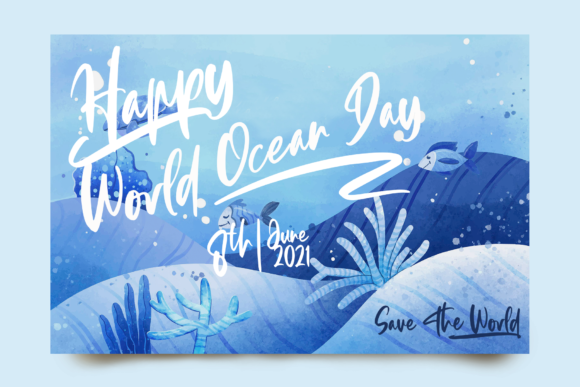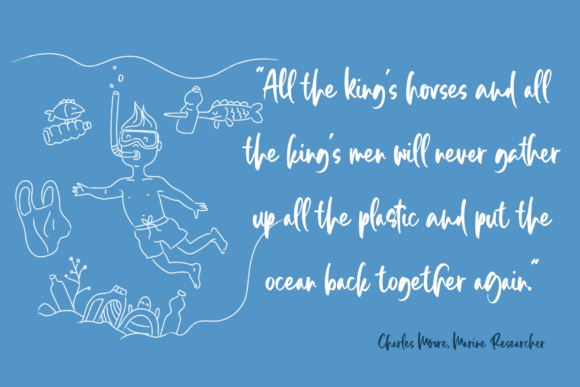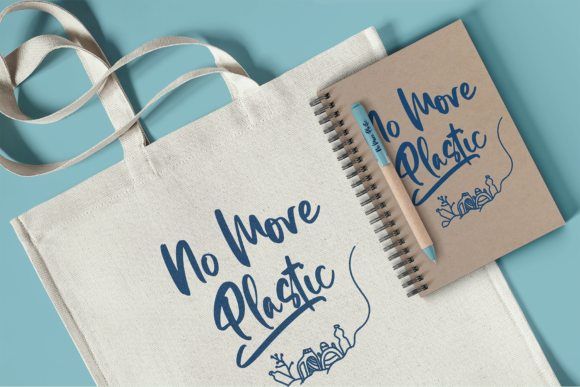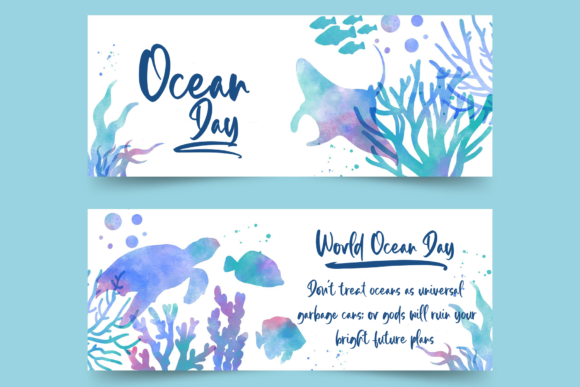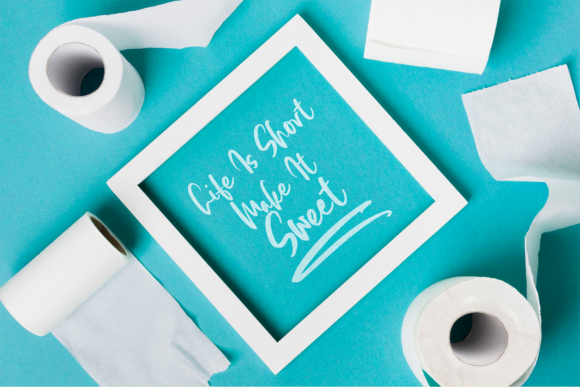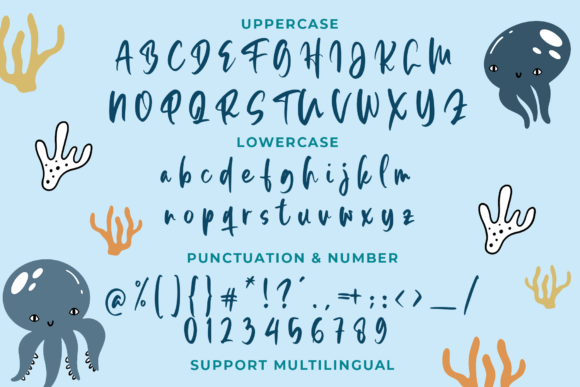
Introducing Glibwood Anthem: The Elegant Handwritten Font for Your Design Needs
Are you a designer or crafter looking for a font that can elevate your projects to the next level? Look no further than Glibwood Anthem, a stunning handwritten font that exudes elegance and sophistication. With its unique blend of flowing lines, gorgeous glyphs, and stunning alternates, this font is sure to capture the hearts of designers and crafters alike.
The Distinctive Style of Glibwood Anthem
Glibwood Anthem is a font that boasts an incredibly distinct and timeless style, perfect for creating spectacular designs that stand out from the crowd. Its elegant touch is evident in every curve and line, making it an ideal choice for projects that require a touch of sophistication. Whether you’re working on a logo, branding materials, or digital products, Glibwood Anthem is sure to bring a level of refinement and luxury to your designs.
Key Features of Glibwood Anthem
So, what makes Glibwood Anthem so special? Here are just a few of its key features:
- PUA Encoding: Glibwood Anthem is PUA encoded, which means you can access all of the glyphs and swashes with ease. This makes it simple to customize your designs and add your own personal touch.
- Varying Baseline: The font features a varying baseline, which gives it a natural, handwritten feel that’s perfect for creating organic and earthy designs.
- Smooth Lines: The lines in Glibwood Anthem are smooth and flowing, creating a sense of movement and fluidity that’s perfect for designs that require a sense of dynamism.
- Gorgeous Glyphs: The font comes with a range of gorgeous glyphs, including stunning alternates that allow you to add an extra level of creativity to your designs.
Using Glibwood Anthem in Your Designs
So, how can you use Glibwood Anthem in your designs? The possibilities are endless! Here are just a few ideas to get you started:
- Logos and Branding: Use Glibwood Anthem to create stunning logos and branding materials that exude elegance and sophistication.
- Digital Products: Add a touch of luxury to your digital products, such as ebooks, courses, and software, with Glibwood Anthem.
- Stationery and Invitations: Use the font to create beautiful stationery and invitations that are sure to impress.
- Web Design: Add a touch of elegance to your website with Glibwood Anthem, perfect for creating a sophisticated and high-end design.
Why Choose Glibwood Anthem?
With so many fonts on the market, why choose Glibwood Anthem? Here are just a few reasons why this font stands out from the crowd:
- Unique Style: Glibwood Anthem boasts a unique and distinctive style that’s sure to set your designs apart.
- Elegant Touch: The font’s elegant touch makes it perfect for projects that require a level of sophistication and luxury.
- Easy to Use: With PUA encoding and a range of glyphs and swashes, Glibwood Anthem is easy to use and customize.
In conclusion, Glibwood Anthem is a stunning handwritten font that’s perfect for designers and crafters looking to add a touch of elegance and sophistication to their projects. With its unique style, gorgeous glyphs, and stunning alternates, this font is sure to capture the hearts of designers and crafters alike. So why wait? Download Glibwood Anthem today and start creating spectacular designs that stand out from the crowd!